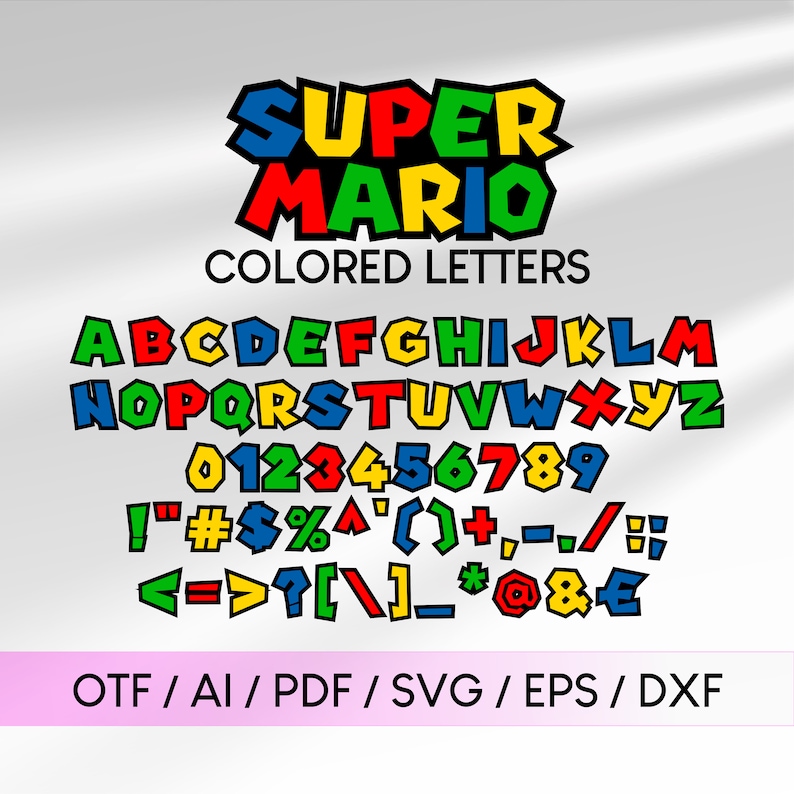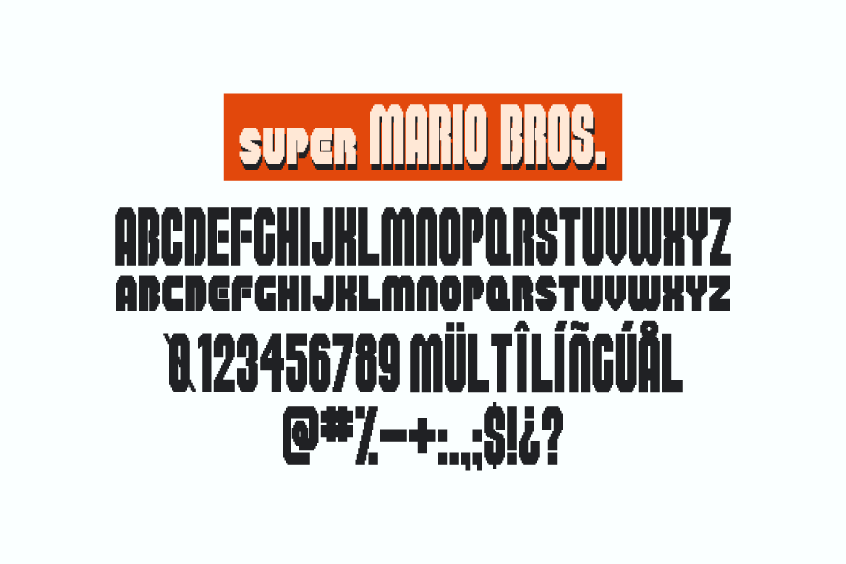
Mario Font Generator
Mario Font Generator - After creating, you can save the image or click on the embed button to get links to. Create a parody with the font and colors. Super mario font generator & download is available free at fontbolt. Use these free super mario themed fonts with luigi, princess toadstool, and more to generate your designs, for free! The text generator below will allow you to create text graphics similar to the style of super mario logo. Unleash the power of 3d effects and bring your words to life, just like the legendary super mario bros. Try our text generator and create cool graphics for super mario font, then you can save the font image to your pc,. Customize your fonts with a touch of nostalgia, bringing the iconic super mario characters to life. Get super creative with our font generator today!
Customize your fonts with a touch of nostalgia, bringing the iconic super mario characters to life. Get super creative with our font generator today! The text generator below will allow you to create text graphics similar to the style of super mario logo. After creating, you can save the image or click on the embed button to get links to. Super mario font generator & download is available free at fontbolt. Try our text generator and create cool graphics for super mario font, then you can save the font image to your pc,. Create a parody with the font and colors. Unleash the power of 3d effects and bring your words to life, just like the legendary super mario bros. Use these free super mario themed fonts with luigi, princess toadstool, and more to generate your designs, for free!
Try our text generator and create cool graphics for super mario font, then you can save the font image to your pc,. Unleash the power of 3d effects and bring your words to life, just like the legendary super mario bros. After creating, you can save the image or click on the embed button to get links to. Create a parody with the font and colors. Get super creative with our font generator today! Customize your fonts with a touch of nostalgia, bringing the iconic super mario characters to life. The text generator below will allow you to create text graphics similar to the style of super mario logo. Super mario font generator & download is available free at fontbolt. Use these free super mario themed fonts with luigi, princess toadstool, and more to generate your designs, for free!
Super Mario Font SVG, Super Mario Digital Download, Super Mario Letters
The text generator below will allow you to create text graphics similar to the style of super mario logo. Customize your fonts with a touch of nostalgia, bringing the iconic super mario characters to life. Use these free super mario themed fonts with luigi, princess toadstool, and more to generate your designs, for free! Unleash the power of 3d effects.
FREE AI Super Mario Font Generator Create Your Mario Character
Super mario font generator & download is available free at fontbolt. Customize your fonts with a touch of nostalgia, bringing the iconic super mario characters to life. Get super creative with our font generator today! Create a parody with the font and colors. The text generator below will allow you to create text graphics similar to the style of super.
super mario font generator HipFonts
Create a parody with the font and colors. Use these free super mario themed fonts with luigi, princess toadstool, and more to generate your designs, for free! The text generator below will allow you to create text graphics similar to the style of super mario logo. Get super creative with our font generator today! Super mario font generator & download.
Super Mario Font Generator Fonts Pool
Customize your fonts with a touch of nostalgia, bringing the iconic super mario characters to life. Create a parody with the font and colors. Unleash the power of 3d effects and bring your words to life, just like the legendary super mario bros. Use these free super mario themed fonts with luigi, princess toadstool, and more to generate your designs,.
Super Mario Font Generator Free damerfarm
Use these free super mario themed fonts with luigi, princess toadstool, and more to generate your designs, for free! After creating, you can save the image or click on the embed button to get links to. Try our text generator and create cool graphics for super mario font, then you can save the font image to your pc,. Get super.
Mario Font Text Effects Generator
The text generator below will allow you to create text graphics similar to the style of super mario logo. Use these free super mario themed fonts with luigi, princess toadstool, and more to generate your designs, for free! Create a parody with the font and colors. Try our text generator and create cool graphics for super mario font, then you.
Super Mario Font Free Download
Super mario font generator & download is available free at fontbolt. The text generator below will allow you to create text graphics similar to the style of super mario logo. Unleash the power of 3d effects and bring your words to life, just like the legendary super mario bros. Use these free super mario themed fonts with luigi, princess toadstool,.
Super Mario Font Fonts Hut
The text generator below will allow you to create text graphics similar to the style of super mario logo. Get super creative with our font generator today! Create a parody with the font and colors. After creating, you can save the image or click on the embed button to get links to. Customize your fonts with a touch of nostalgia,.
Super Mario Font Mario Bros, World, & More! Free Download
Super mario font generator & download is available free at fontbolt. Use these free super mario themed fonts with luigi, princess toadstool, and more to generate your designs, for free! After creating, you can save the image or click on the embed button to get links to. Get super creative with our font generator today! Try our text generator and.
The Text Generator Below Will Allow You To Create Text Graphics Similar To The Style Of Super Mario Logo.
Customize your fonts with a touch of nostalgia, bringing the iconic super mario characters to life. After creating, you can save the image or click on the embed button to get links to. Try our text generator and create cool graphics for super mario font, then you can save the font image to your pc,.